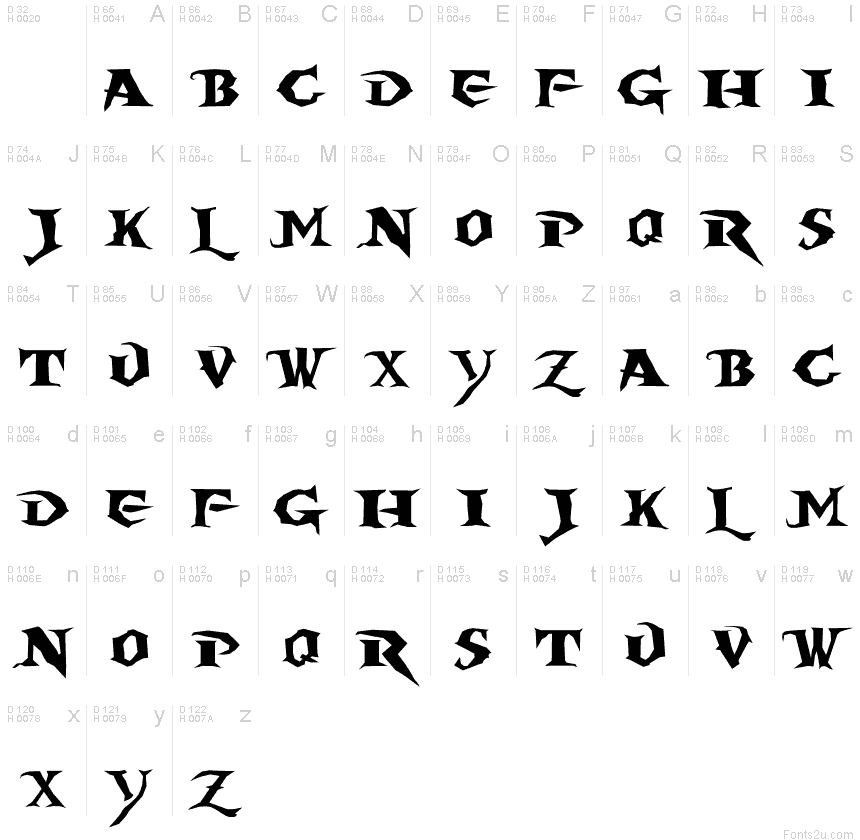
WoW Sublogo Font
At creation of this font the logo of " World of Warcraft" game (in particular words "Burning Crusade" and "Wrath of the Linch King") has been used. If at use your inscription mismatches your requirements (letters fit against each other) use more SPACES (for this reason SPACE such narrow :-) ).